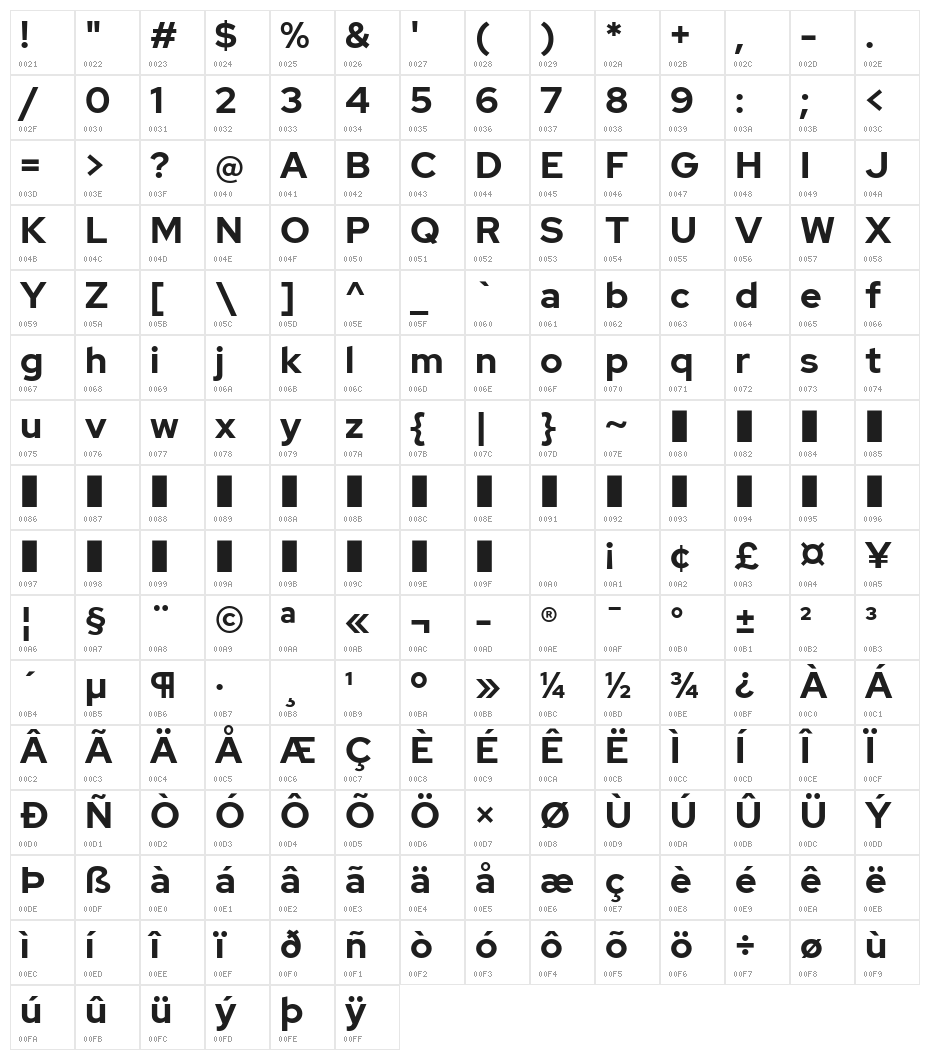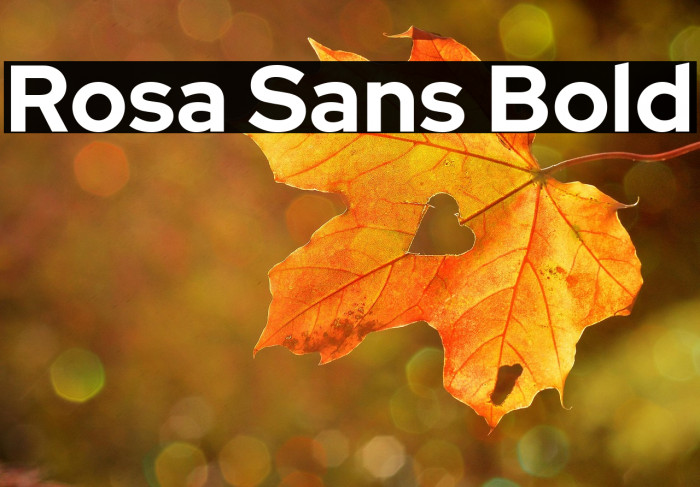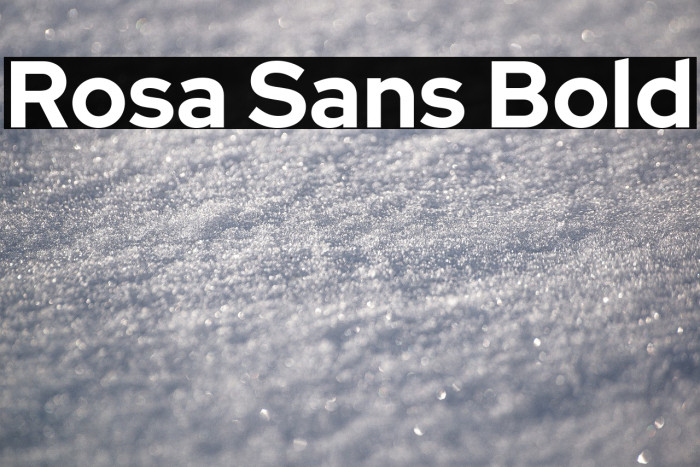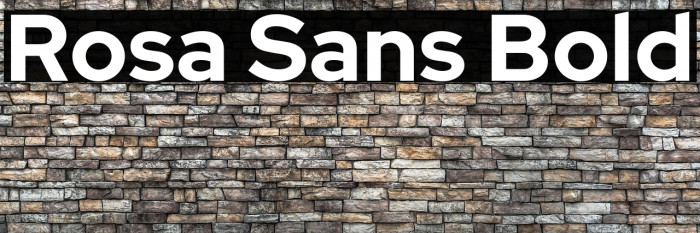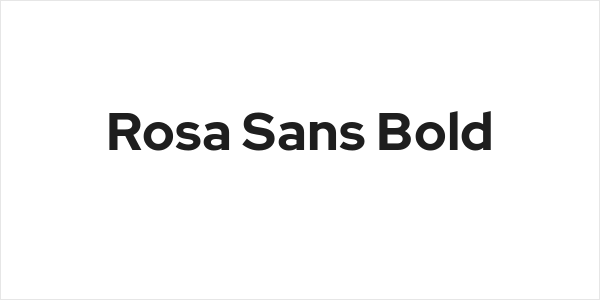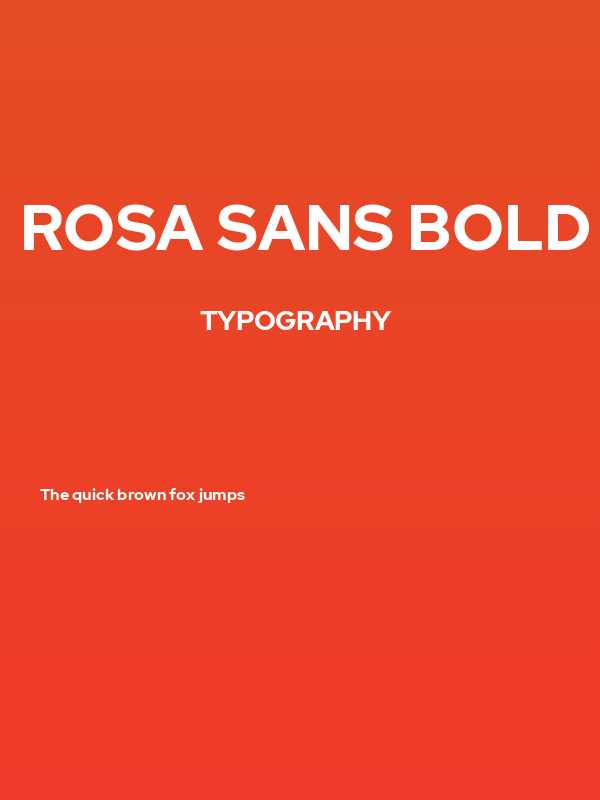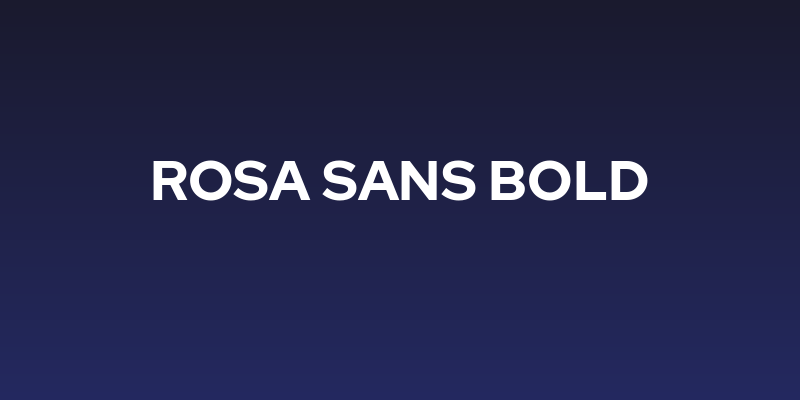
Rosa Sans Bold Font
Rosa Sans Bold Description
This font is a bold, modern sans-serif typeface characterized by its clean and straightforward design. The letters are uniform in width, providing a balanced and harmonious appearance. The uppercase and lowercase letters are well-proportioned, with rounded edges that add a touch of softness to the overall look. The numerals are clear and easy to read, making them suitable for various applications. Special characters are included, maintaining the same bold and consistent style. This font is versatile, suitable for both digital and print media, and can be used in a variety of design projects.
Use CaseHeadlines, Logos, Digital content
Proposed ProjectsIdeal for branding, advertising, headlines, and digital content.